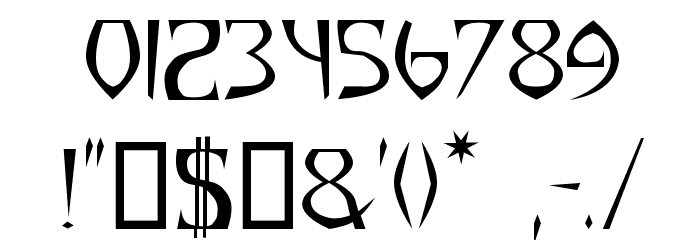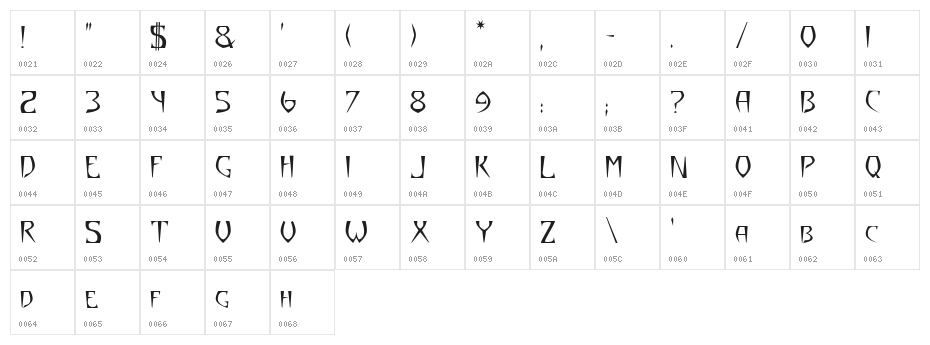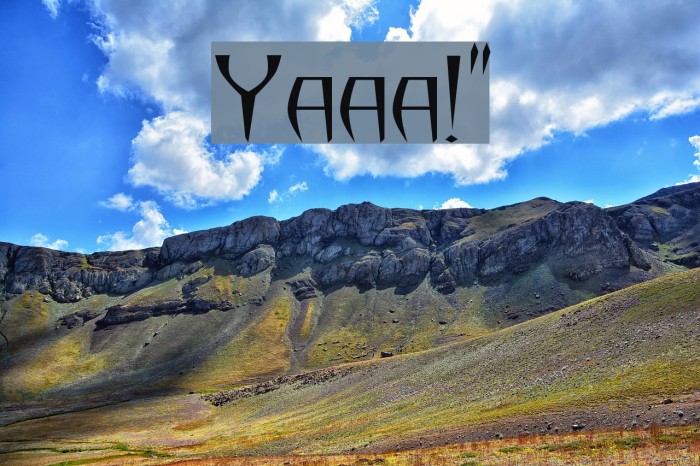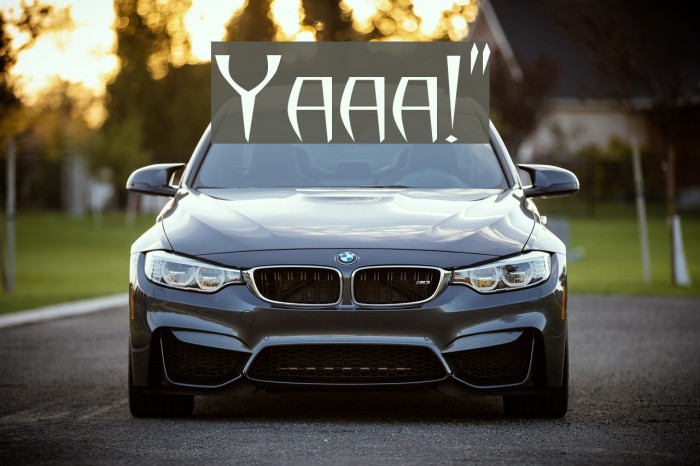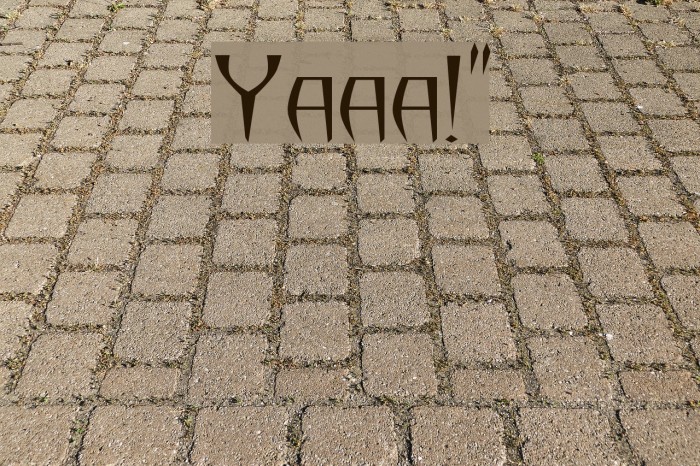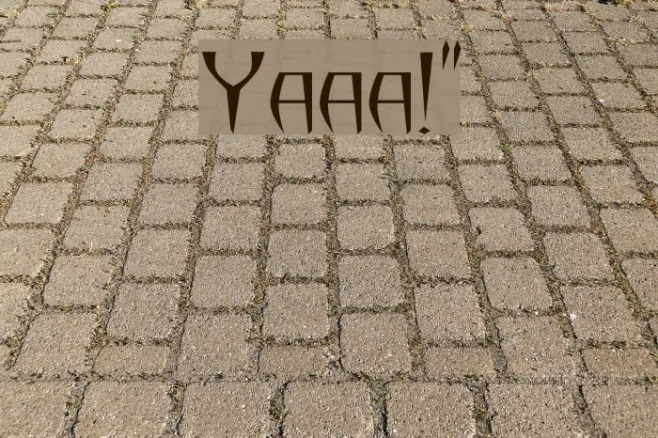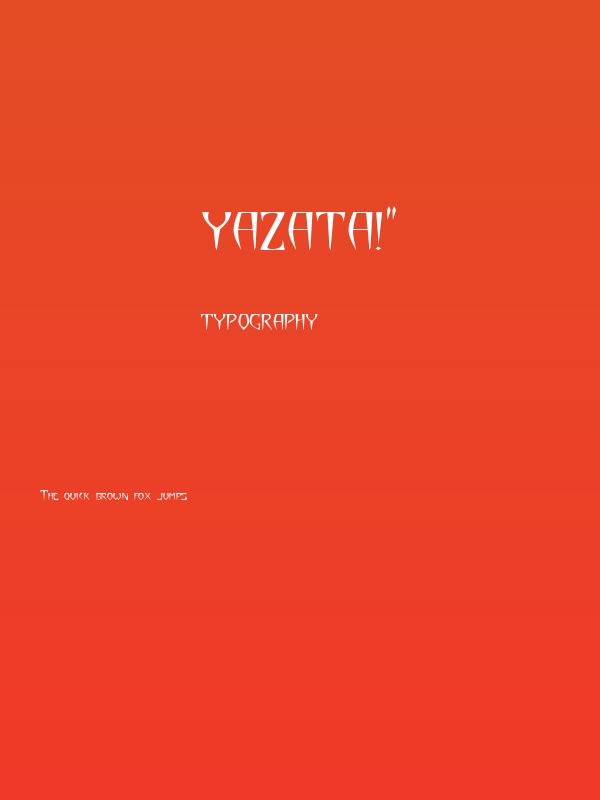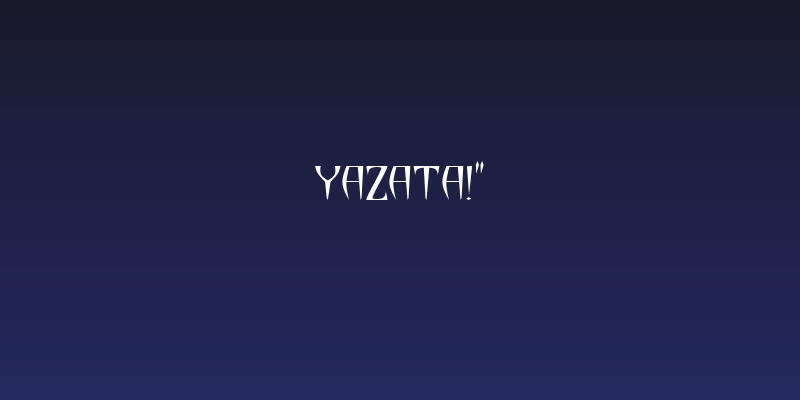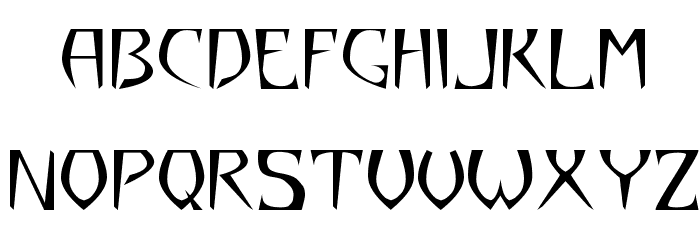
Yazata!" Font
Yazata!" Description
This font features a unique and edgy design with sharp, angular strokes that give it a dynamic and bold appearance. The characters are crafted with a distinct geometric style, incorporating pointed edges and varying line thicknesses that create a sense of movement and energy. The uppercase letters are particularly striking, with a futuristic and almost tribal aesthetic. The numbers and special characters maintain this theme, ensuring a cohesive look across all glyphs. This font stands out with its artistic flair, making it suitable for projects that require a strong visual impact.
| Proposed Projects | Ideal for branding, posters, album covers, and any design that needs a bold, artistic touch. |